12 Plumbing Fonts to Renovate Your Business
Plumbing services will always be in demand, but in the modern world, you need to step up your marketing game as well to be noticeable. Here are 12 great plumbing fonts that will make your business stand out among the rest.
Sans serif fonts
What is the thing that you wish for your plumbing business to convey to your customers? Surely being a reliable, trustworthy destination for your customers’ needs will be among the top on the list. Sans serif fonts are a great choice to communicate stability and integrity of a brand as they convey cleanliness, strength and dependability.
1. Moon Get! (Free)
Although originally a videogame typeface, Moon Get! will translate equally well for usage in a plumbing company logo. Its bold appearance will make any text legible from afar and help your business name be solidified into the minds of all who see it.
2. Aquino (Free for personal use)
This aquatic-looking typeface is perfect for any plumbing business, as the two smaller circles above the letter “O” resembling water bubbles add a unique and quirky look to the text. Its rounded edges give off a polished yet cheerful look. Who said a plumbing business logo has to be boring?
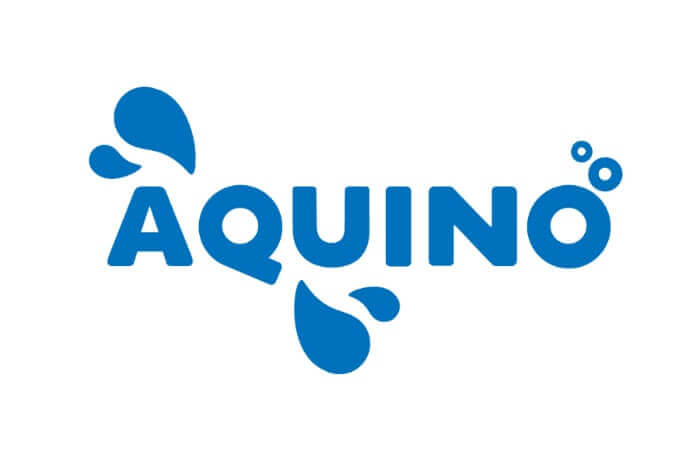
3. Allegro (Free)
The following font is on the thinner side, perfect for subheadings and smaller chunks of text. Allegro's neat and minimal look will serve as a great addition to your plumbing logo.
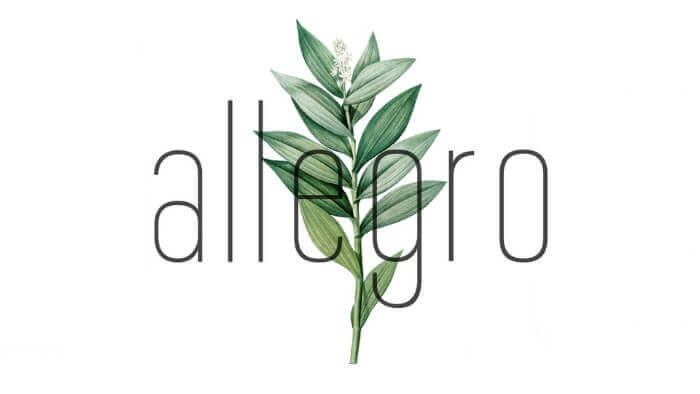
4. Quartzo (Free for personal use)
Described as “rock-solid,” Quartzo screams confidence and boldness. The beautiful ligatures add a unique touch to the design which will surely catch the eyes of the young generation of customers, as well as emphasize your certainty in your business.
Serif fonts
Having been around for centuries, this family of fonts conveys reputability, elegance, and, most importantly, trustworthiness. If your plumbing business is a family business that has been around for generations or one that boasts a great track record among customers, the following fonts might be a great choice.
5. MADE Gentle (Free for personal use)
While the world of pipes is not exactly known for its elegance, embellishing the reality is an everyday occurrence in marketing. This soft yet sturdy font has a robust, bubble-like appearance, vaguely resembling cartoon pipes. Although unconventional, Made Gentle is sure to make your plumbing logo stand out among the rest.
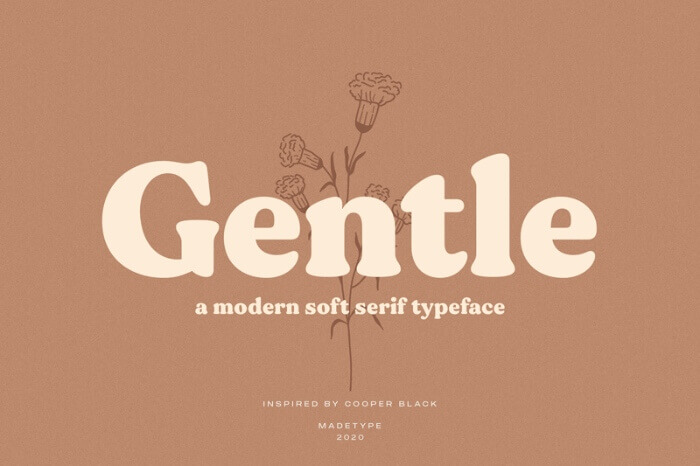
6. Theobald (Free)
Inspired by vintage beer labels, this condensed font is consistent in its appearance. Theobald's sharp and square corners signal a feeling of stability and trust, as well as vaguely mirroring the appearance of water pipes—a solid choice for your plumbing troubles!
7. Murden CF (Free)
This bold typeface comes in two versions—regular and condensed, fitting for a variety of text sizes and objectives. The high font contrast (difference in width of the main and additional lines of the letters) allows for a strong visual effect, perfect for using in smaller chunks of texts, such as spelling out the name of your business.
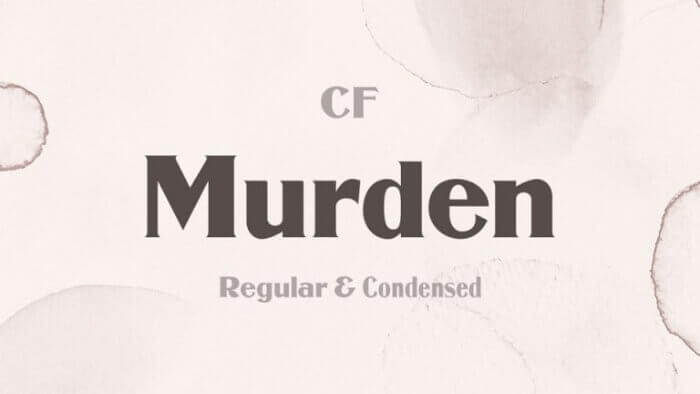
8. Vibrocentric (Free)
If you don’t love plumbing pipe fonts that can look a bit silly, Vibrocentric is a terrific alternative. This wide, square-shaped font with sharp edges is a perfect choice for your plumbing business, as it has a vaguely robotic look and hence will fit perfectly for any industrial profession or niche.
Script fonts
Script fonts are very versatile and can give a variety of effects to the text, from elegance and class to playfulness and character. It can also add something extra to your text as script fonts are made to mimic handwriting and hence are highly customizable. Here are some script typefaces which can give a unique touch to your business.
9. Carten (Free)
This retro-looking font appears to have been written with a paintbrush and boasts curly letter extensions, giving any text character a uniform appearance. Highly versatile, Carten can be used to emphasize a number of different aspects of your plumbing services—whether that be a unique approach, long business history, or your company character.
10. Flottflott (Free)
Another vintage/retro entry on the list, this streamlined font is a great choice for your company if speedy delivery of your services is a particular strength of your plumbing business. The slanted appearance of the font conveys movement and speed, and the separation of the letters allows for high legibility, making Flottflott a perfect choice for spelling out your company name.
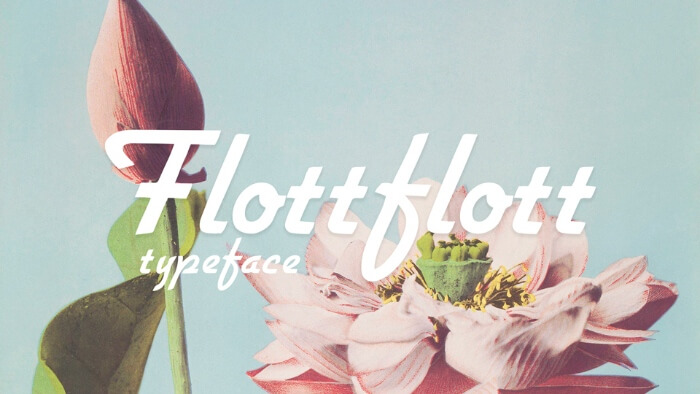
Decorative fonts
By far the most diverse category of fonts on this list, decorative fonts encompass all sorts of typeface designs to meet specific design needs. Many use unusual shapes and measurements to achieve dramatic results, which make this category of fonts perfect for niche-specific businesses, including the plumbing industry.